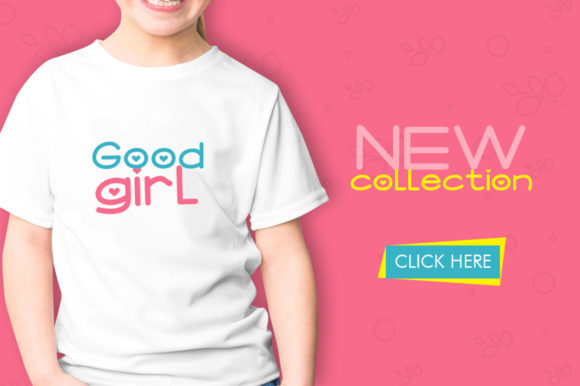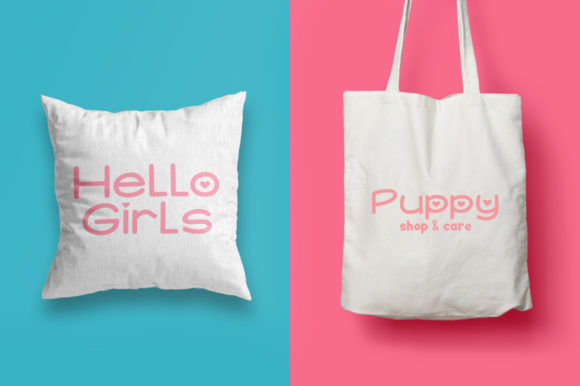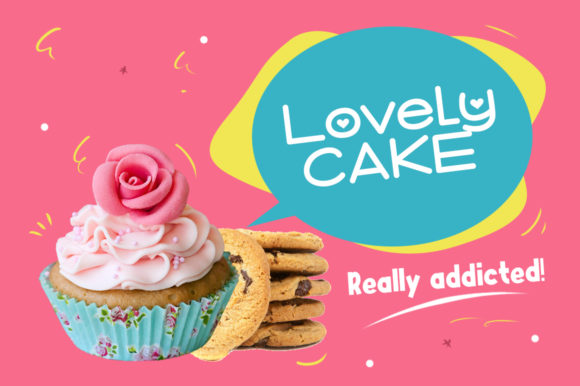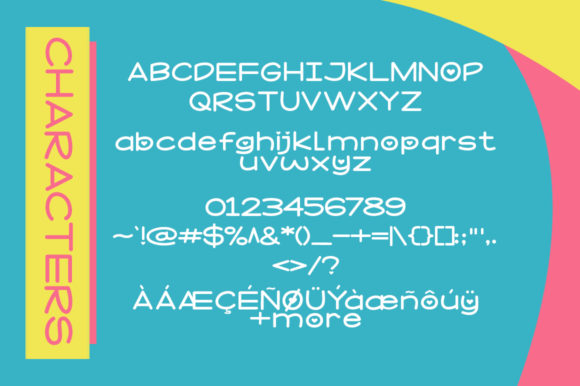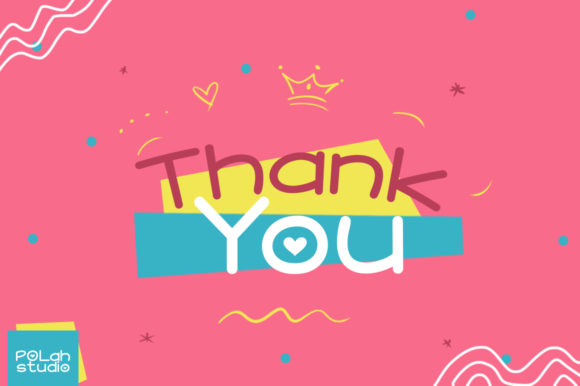
Cayang Qiu Font: Unleash Your Creativity with a Playful and Dynamic Typographic Experience
Are you a designer, crafter, or artist looking for a font that can add a touch of playfulness and friendliness to your creative projects? Look no further than the Cayang Qiu Font! This exciting new font is designed to deliver a unique and engaging typographic experience that will turn any design idea into a truly original piece of art.
What is Cayang Qiu Font?
Cayang Qiu Font is a carefully crafted typeface that boasts a distinctive and eye-catching style. With its playful and dynamic curves, this font is perfect for designers and crafters who want to add a bit of whimsy and personality to their work. Whether you’re creating a logo, poster, or social media graphic, Cayang Qiu Font is sure to make your design stand out from the crowd.
Key Features of Cayang Qiu Font
So, what makes Cayang Qiu Font so special? Here are just a few of its key features:
- Playful and Dynamic: Cayang Qiu Font features a unique and playful design that is sure to add a touch of energy and excitement to your designs.
- Friendliness: The font’s friendly and approachable style makes it perfect for use in a wide range of design projects, from children’s books to social media graphics.
- Versatility: Cayang Qiu Font is highly versatile and can be used in a variety of design contexts, from digital media to print materials.
- Originality: With its distinctive and eye-catching style, Cayang Qiu Font is sure to help you create designs that are truly original and unique.
How to Use Cayang Qiu Font in Your Designs
So, how can you use Cayang Qiu Font in your designs? Here are a few ideas to get you started:
- Logos and Branding: Use Cayang Qiu Font to create a unique and memorable logo that will help your brand stand out from the competition.
- Posters and Flyers: Add a touch of playfulness and energy to your posters and flyers with Cayang Qiu Font.
- Social Media Graphics: Use Cayang Qiu Font to create eye-catching social media graphics that will help you connect with your audience.
- Crafting and DIY Projects: Add a personal touch to your crafting and DIY projects with Cayang Qiu Font.
Tips for Getting the Most Out of Cayang Qiu Font
Here are a few tips for getting the most out of Cayang Qiu Font:
- Pair with Other Fonts: Try pairing Cayang Qiu Font with other fonts to create a unique and interesting typographic combination.
- Use in Combination with Images: Use Cayang Qiu Font in combination with images to add a touch of personality and whimsy to your designs.
| Font Name | Cayang Qiu Font |